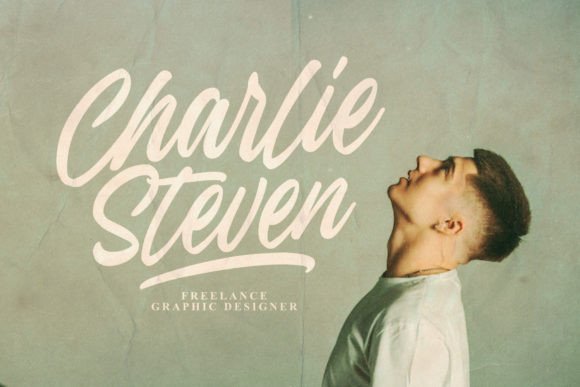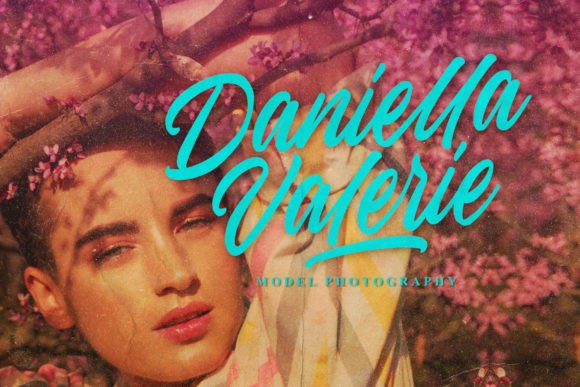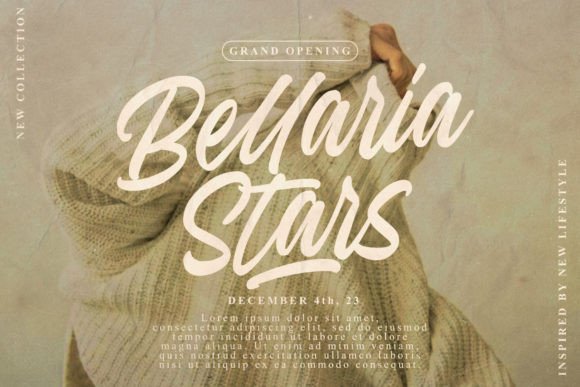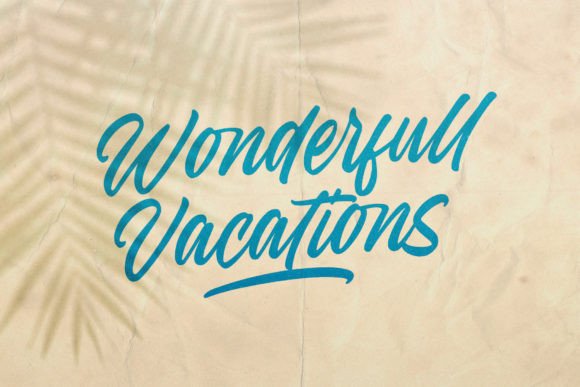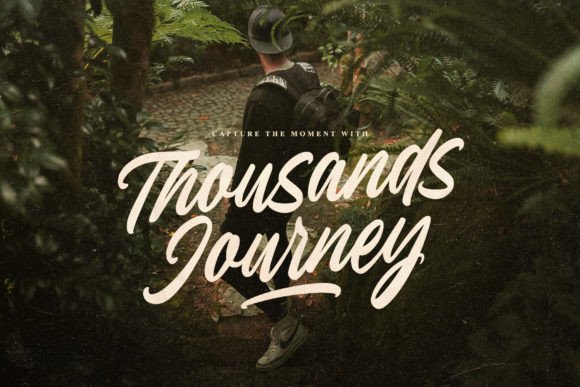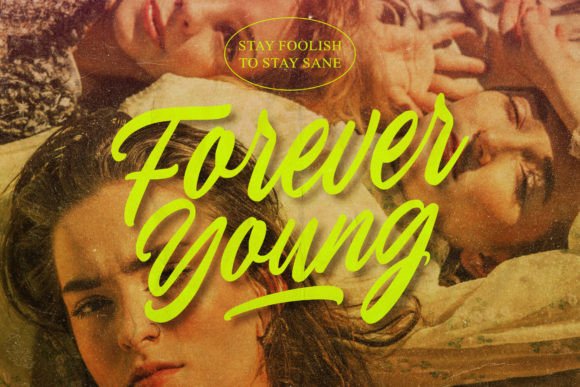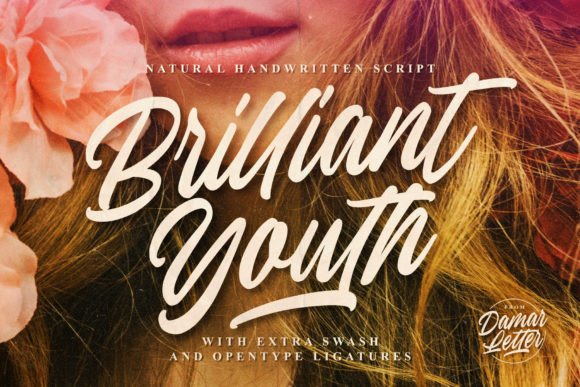
Introducing Brilliant Youth Font: Elevate Your Designs with Elegance and Sophistication
In the world of typography, a font can make or break the aesthetic of a design project. For those seeking a touch of elegance and sophistication, look no further than the Brilliant Youth Font. This chic, refined script font is designed to bring a contemporary flair to any project, making it the perfect choice for designers and crafters alike.
The Essence of Brilliant Youth Font
Brilliant Youth is more than just a font; it’s a statement piece. Its stylish ligatures and elegant glyphs are meticulously crafted to add a touch of luxury and refinement to your designs. Whether you’re working on a branding project, a wedding invitation, or a packaging design, this font is sure to impress.
Key Features of Brilliant Youth Font
- Stylish Ligatures: The Brilliant Youth Font boasts a range of stylish ligatures that seamlessly connect letters, creating a fluid and natural look. These ligatures add a level of sophistication to your text, making it perfect for high-end designs.
- Elegant Glyphs: The font features a wide range of elegant glyphs, including alternate characters and swashes. These glyphs allow you to add a personal touch to your designs, making them truly unique.
- Contemporary and Sophisticated: The Brilliant Youth Font strikes the perfect balance between modernity and elegance. Its clean lines and refined features make it an excellent choice for projects that require a contemporary touch.
The versatility of the Brilliant Youth Font makes it suitable for a wide range of design projects. Here are a few examples:
- Branding and Logos: Create a lasting impression with a custom logo or brand identity that exudes elegance and sophistication.
- Wedding and Event Invitations: Add a touch of luxury to your wedding or event invitations, making them truly unforgettable.
- Packaging Design: Elevate your product packaging with a refined and contemporary font that reflects your brand’s values.
- Stationery and Editorial Design: Bring a level of sophistication to your stationery, magazines, and editorial designs with the Brilliant Youth Font.
Why Choose Brilliant Youth Font?
With so many fonts available, why choose Brilliant Youth? Here are a few compelling reasons:
- Unique and Exclusive: The Brilliant Youth Font is a unique and exclusive addition to your font library, allowing you to stand out from the crowd.
- High-Quality Design: The font is meticulously designed to ensure high-quality output, even at small sizes.
In conclusion, the Brilliant Youth Font is a chic, refined script font that adds a touch of elegance and sophistication to any design project. Its stylish ligatures, elegant glyphs, and contemporary feel make it the perfect choice for designers and crafters seeking to elevate their designs. Whether you’re working on a branding project, wedding invitation, or packaging design, this font is sure to impress.